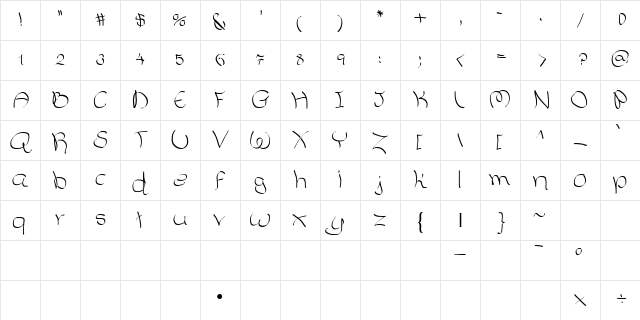
YaelOkFch Regular
Design Context for YaelOkFch
YaelOkFch is a composed and adaptable typeface that performs quietly and consistently across a wide range of design contexts.